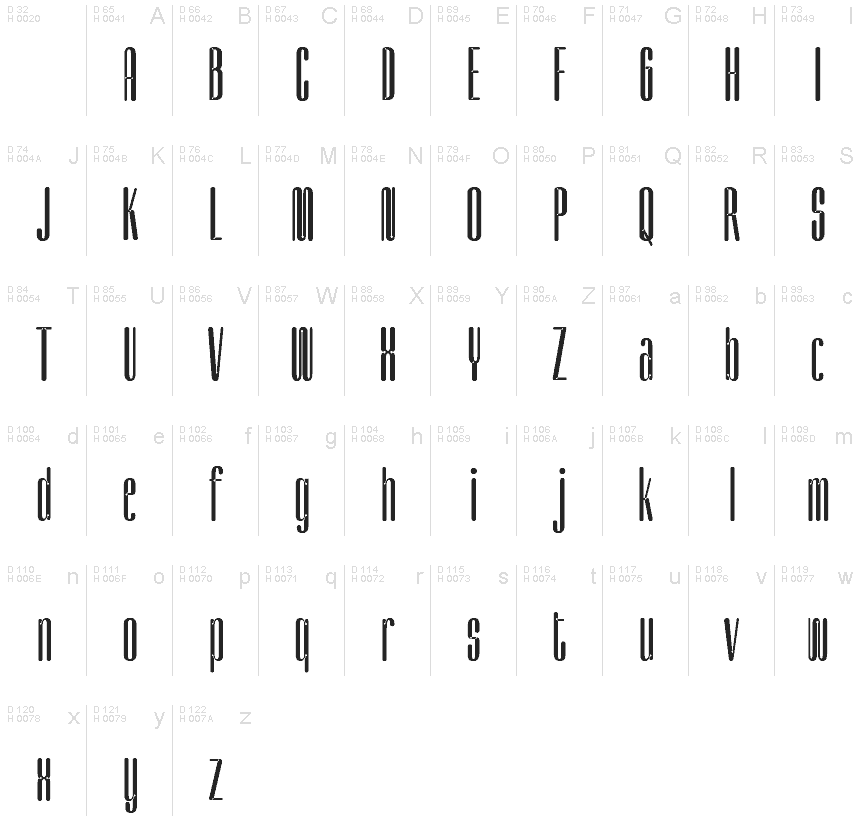
Palaside Demo Regular
Palaside font by Craft Supply Co is a light eroded display typeface with a condensed width. The tall rectangular shapes feature slim thickness and geometric flair which outstandingly decorate each letter. An expertly designed high-tech aesthetic associated with a modern futuristic style stands behind this free display font.
Decorative elements in Palaside enable any visual design regardless of destination, where perfection is a must. Sleek movie posters, fancy apparel brandings, magazine covers, website designs, logos, album cover artworks, flyers, and social media graphics are the main use cases for it. The type product also fits fine in book covers especially sci-fi genres!